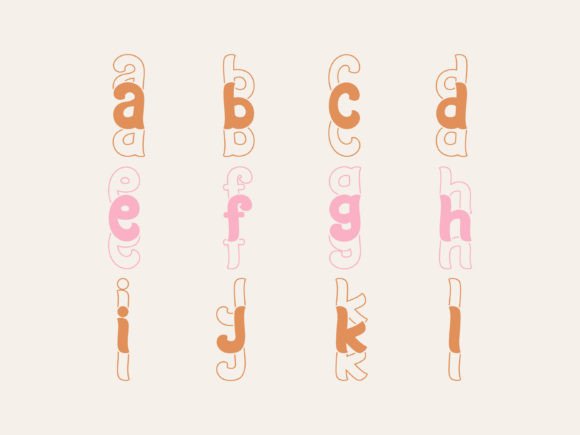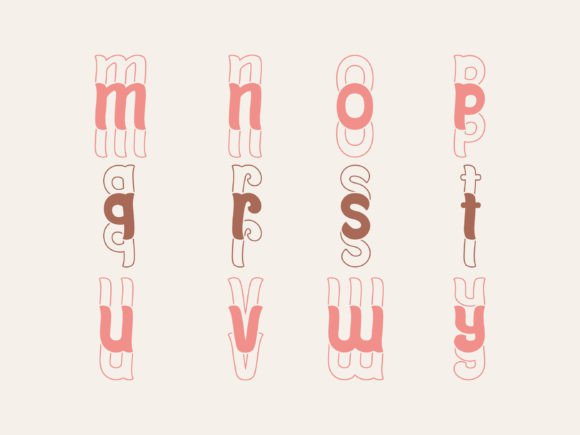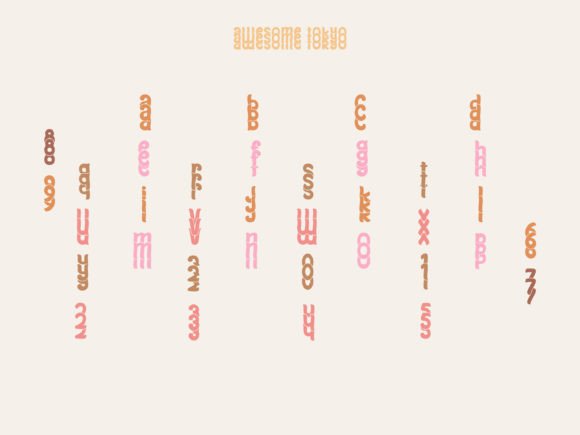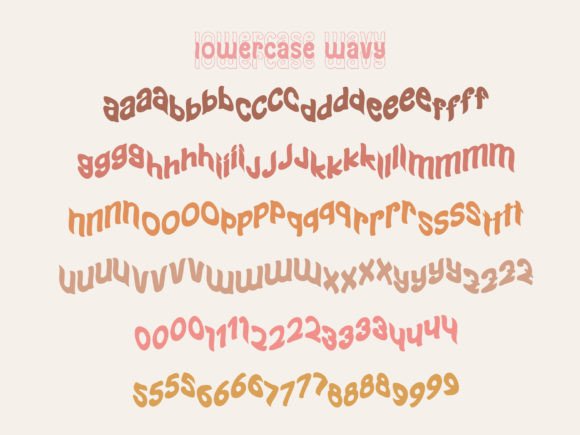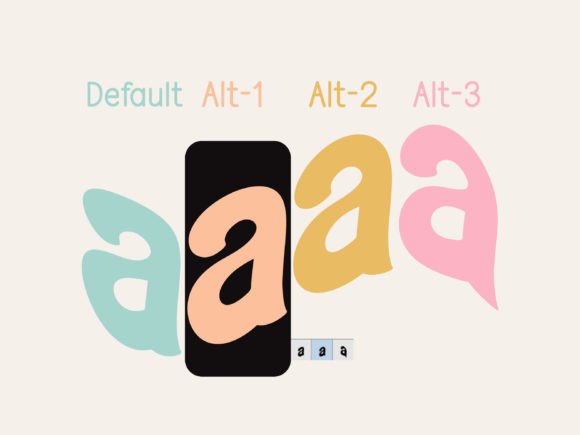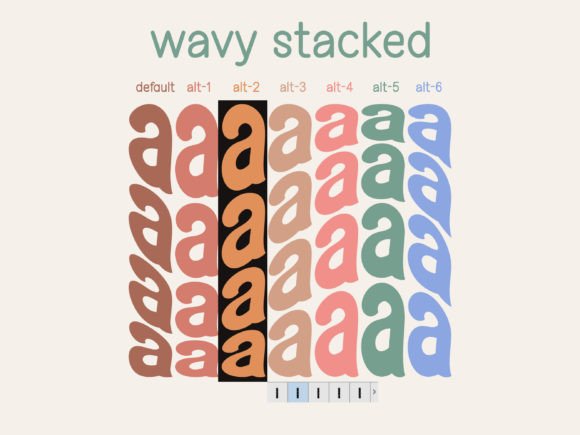
Discover the Magic of Awesome Wavy Stacked Font
You know that moment when you’re brainstorming ideas for a new project, and suddenly, a spark of creativity hits you? The excitement is palpable, and you can’t wait to bring your vision to life. For many designers, this moment is the starting point of a creative journey that can lead to truly remarkable results.
That’s where Awesome Wavy Stacked Font comes in – a charming display font designed to add a touch of whimsy and personality to your designs. With its unique, wavy style, this font is perfect for projects that need a little extra flair. Whether you’re working on a logo, a poster, or a social media graphic, Awesome Wavy Stacked Font is sure to bring a smile to your face and a spark to your design.
As a valuable addition to your design toolkit, Awesome Wavy Stacked Font offers endless possibilities for creative expression. So why not give it a try and see how it can elevate your next project?
Awesome Wavy Stacked Font Features
- Unique Characteristics: The font’s wavy, stacked design gives it a distinctive and eye-catching appearance, making it perfect for use in creative and artistic applications.
- Kerning and Ligatures: The font includes advanced kerning and ligature pairs, ensuring that the text flows smoothly and looks professional, even in complex layouts.
Awesome Wavy Stacked Font Review
Overall, I think the Awesome Wavy Stacked Font is a creative and visually appealing font. ✨ Its wavy, stacked design makes it perfect for adding a playful touch to various projects, from logos to social media graphics. The font’s uniqueness is one of its strongest selling points, and I appreciate how it can add a bit of personality to any design.
- What I like:
- ✨ The font’s creative, stacked design makes it perfect for adding a playful touch.
- ✨ The font is highly versatile and can be used in a variety of projects, from logos to social media graphics.
- ✨ The font is available in a range of font styles, including bold and italic.
- What I don’t like:
- ⚠️ The font may be too playful for some designs, and may not be suitable for more formal or professional projects.
- ⚠️ The font’s wavy design may not be as readable at smaller font sizes.
In terms of overall impression, I think the Awesome Wavy Stacked Font is a solid choice for designers looking to add some creativity to their projects. While it may not be suitable for all types of projects, it’s a great option for designers who want to add a bit of personality to their work.
Awesome Wavy Stacked Font is perfect for:
- Food and drink branding
- Music and entertainment promotions
- Artistic and creative projects